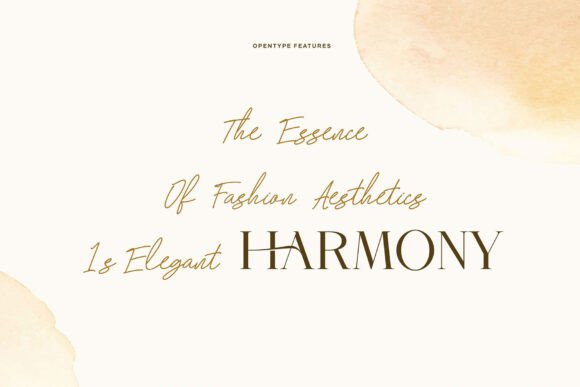
Lunery Purity Font: Elevate Your Designs with Modern Elegance
In the world of typography, fonts play a crucial role in conveying the message and aesthetic of a design. For those seeking a modern and elegant touch, the Lunery Purity Font is an exceptional choice. This comprehensive article will delve into the features, benefits, and applications of the Lunery Purity Font, exploring how it can elevate your designs to new heights.
Introduction to Lunery Purity Font
The Lunery Purity Font is a modern style serif font that exudes sophistication and refinement. Its design includes a wide range of characters, such as uppercase letters, numbers, and punctuation, making it a versatile tool for various design projects. The font’s creator aimed to produce a typeface that would cater to the needs of designers looking for a clean, elegant, and highly legible font.
Key Features of Lunery Purity Font
- Uppercase Letters and Numbers: The Lunery Purity Font includes a comprehensive set of uppercase letters and numbers, ensuring that you have all the characters you need for your designs.
- Punctuation and Symbols: In addition to letters and numbers, the font also features a range of punctuation marks and symbols, enhancing its versatility.
- Ligatures and Alternate Characters: One of the standout features of the Lunery Purity Font is its inclusion of ligatures and alternate characters. These typographic elements allow for a more natural flow of text and can add a unique touch to your designs.
- Signature Script Font: To further expand its utility, the Lunery Purity Font package includes a signature script font. This addition enables designers to add a personal and elegant touch to their projects.
Applications of Lunery Purity Font
The Lunery Purity Font is designed to be versatile, making it suitable for a wide array of design applications. Here are some of the key areas where this font can shine:
Poster Design
For poster design, the Lunery Purity Font offers a clean and modern aesthetic that can help your message stand out. Its serif design adds a touch of sophistication, making it ideal for both promotional and informational posters.
Web Design
In the realm of web design, typography is crucial for user experience. The Lunery Purity Font, with its clear and legible design, can enhance the readability of your website, making it more user-friendly and engaging.
Branding and Logo Design
For branding and logo design, the Lunery Purity Font provides a professional and elegant look. Its modern style can help brands appear more contemporary and appealing to their target audience.
Illustrations and Badges
The font’s versatility extends to illustrations and badges, where its detailed and refined appearance can add significant value. Whether you’re creating icons, badges, or intricate illustrations, the Lunery Purity Font can be a valuable asset.
Benefits of Using Lunery Purity Font
The Lunery Purity Font offers several benefits that make it a preferred choice among designers:
Elegance and Sophistication
The font’s modern serif design lends an air of elegance and sophistication to any project. Its refined appearance can elevate the overall look of your designs.
Versatility
With its wide range of characters, ligatures, and alternate characters, the Lunery Purity Font is highly versatile. It can be used across various design projects, from print to digital media.
Legibility
Legibility is a critical factor in typography, and the Lunery Purity Font excels in this area. Its clear and well-spaced design ensures that text is easy to read, making it suitable for both headings and body text.
How to Use Lunery Purity Font Effectively
To maximize the potential of the Lunery Purity Font, consider the following tips:
Pairing with Other Fonts
While the Lunery Purity Font is elegant on its own, pairing it with complementary fonts can enhance its appeal. Choose fonts that contrast with its serif design to create visual interest.
Utilizing Ligatures and Alternates
Take advantage of the font’s ligatures and alternate characters to add a unique touch to your designs. These elements can help create a more dynamic and engaging text.
Adjusting Font Sizes and Weights
Experiment with different font sizes and weights to create a visual hierarchy in your designs. This can help guide the reader’s attention and enhance the overall readability of your content.
The Lunery Purity Font is a powerful tool for designers seeking to add a touch of modern elegance to their projects. With its comprehensive character set, ligatures, alternate characters, and signature script font, it offers versatility and sophistication. Whether you’re working on posters, web design, branding, or illustrations, the Lunery Purity Font can help you achieve your creative goals. By understanding its features and applications, you can unlock the full potential of this exceptional typeface and elevate your designs to new heights.